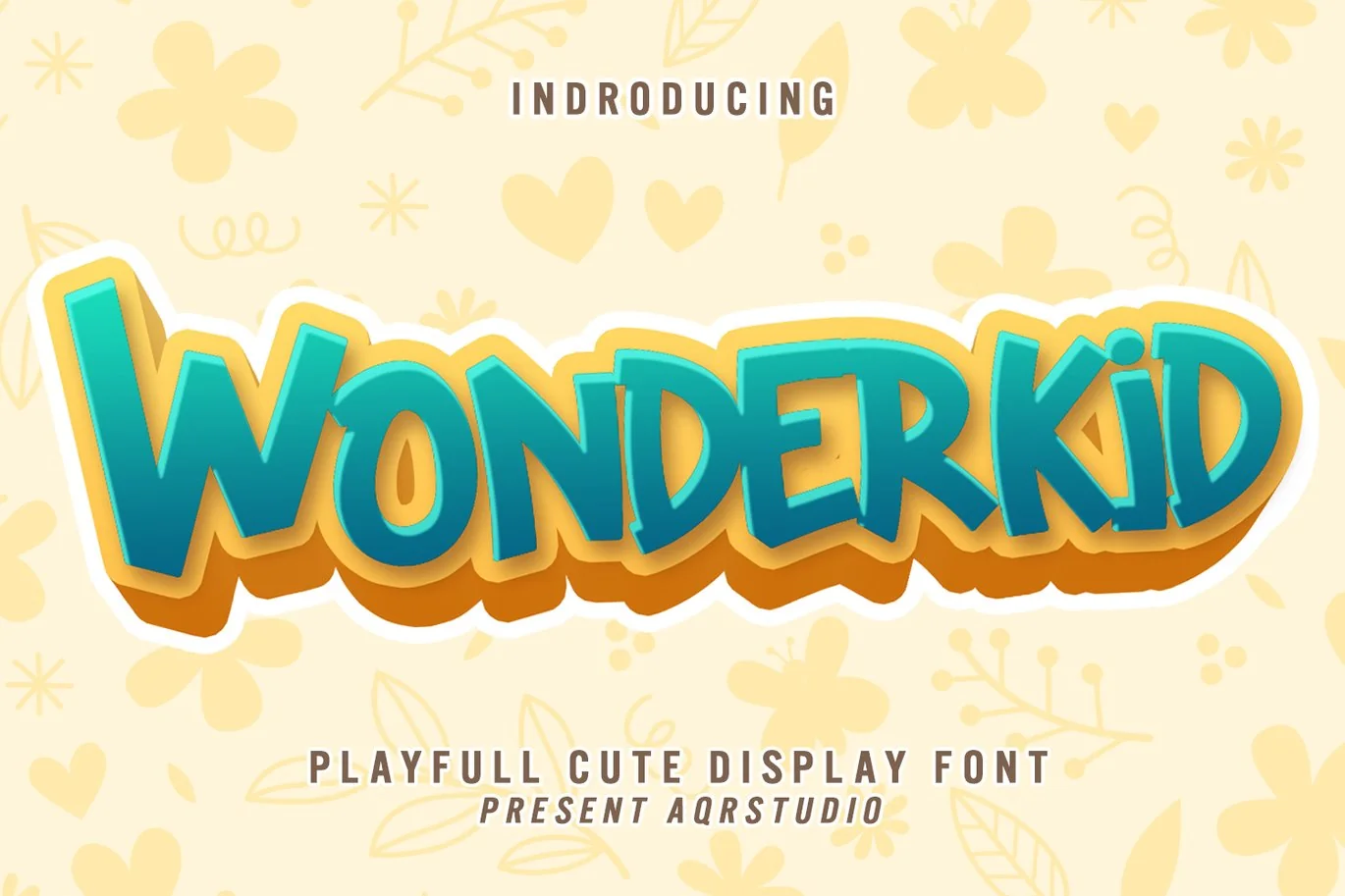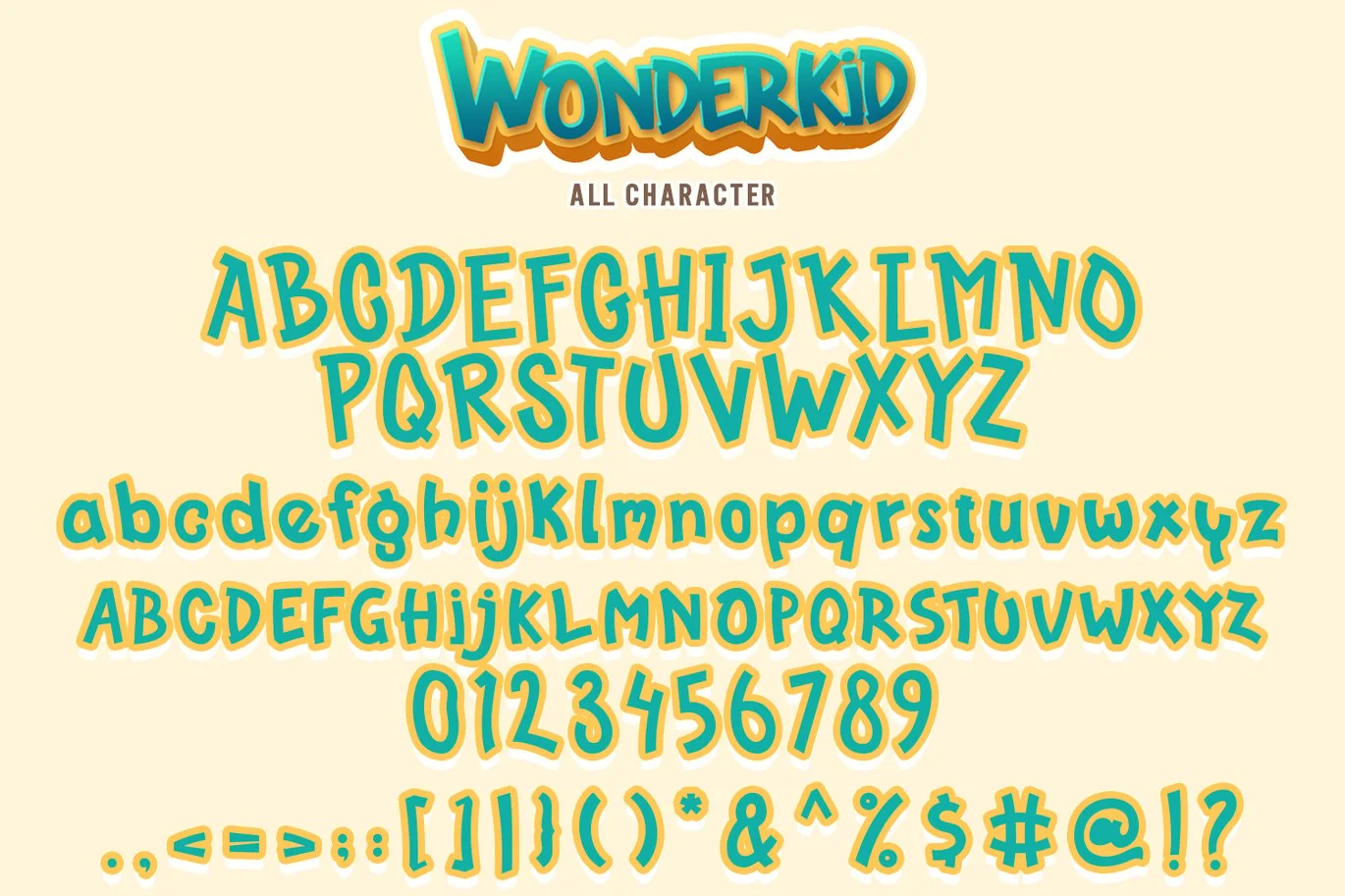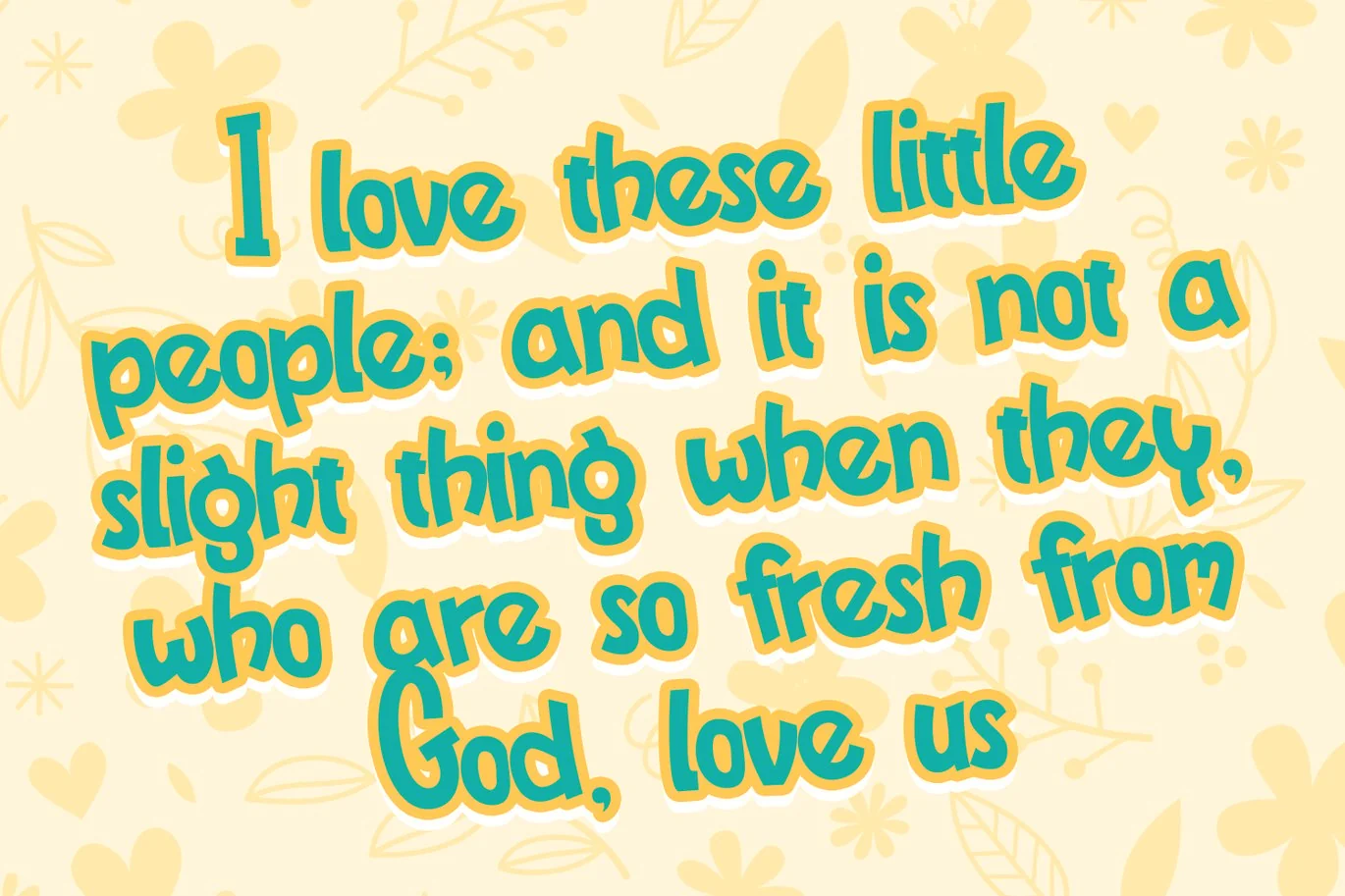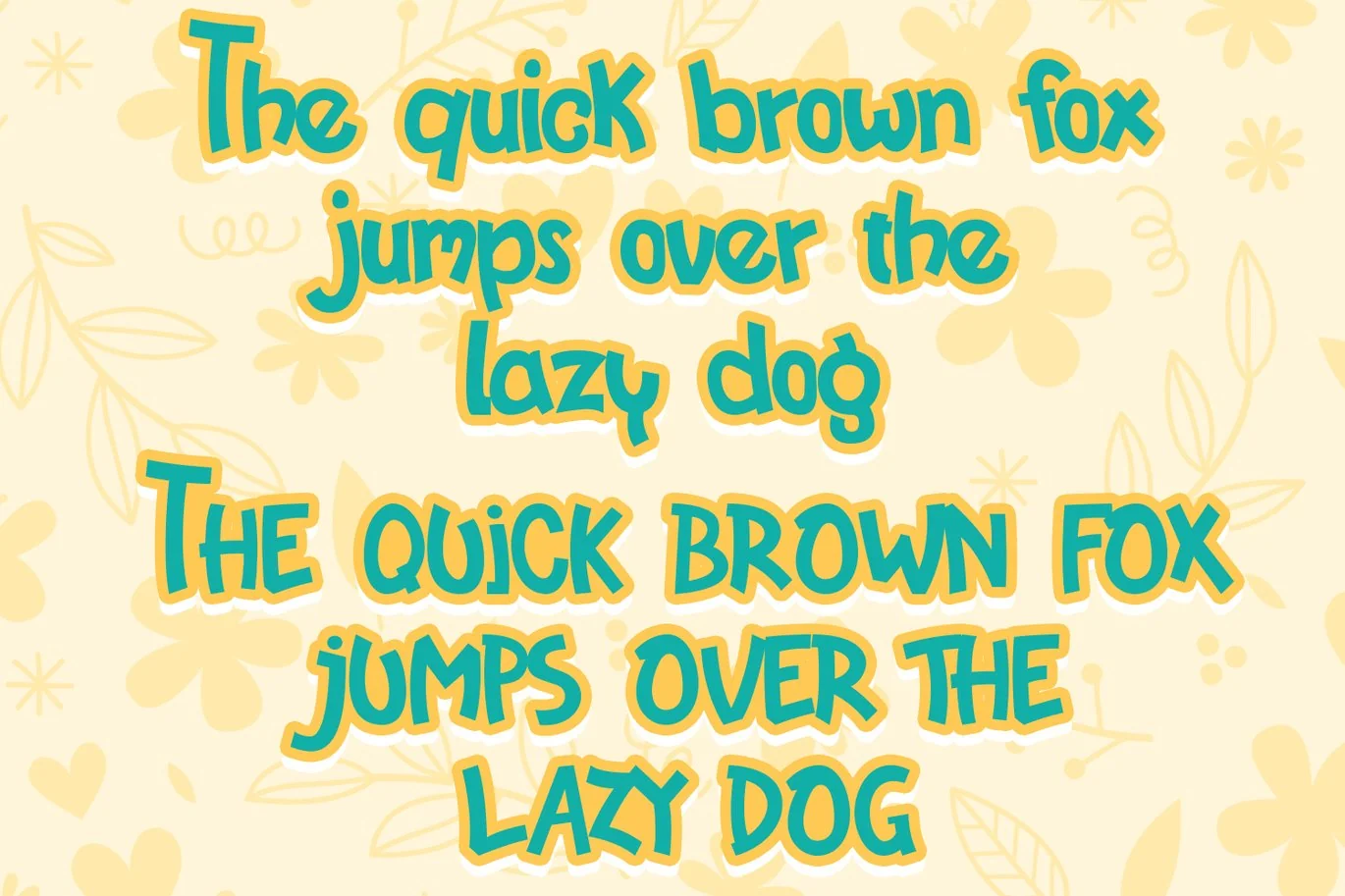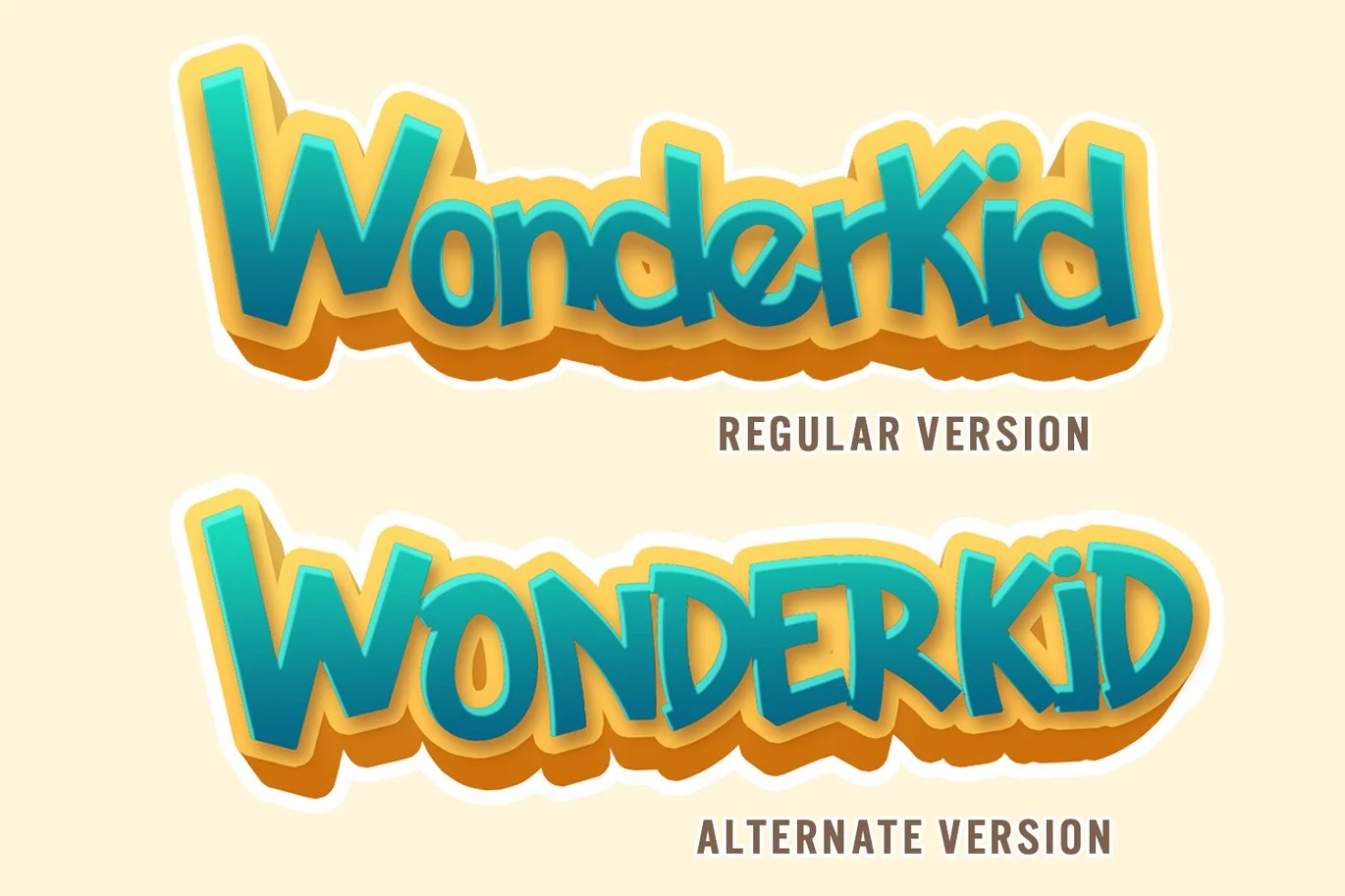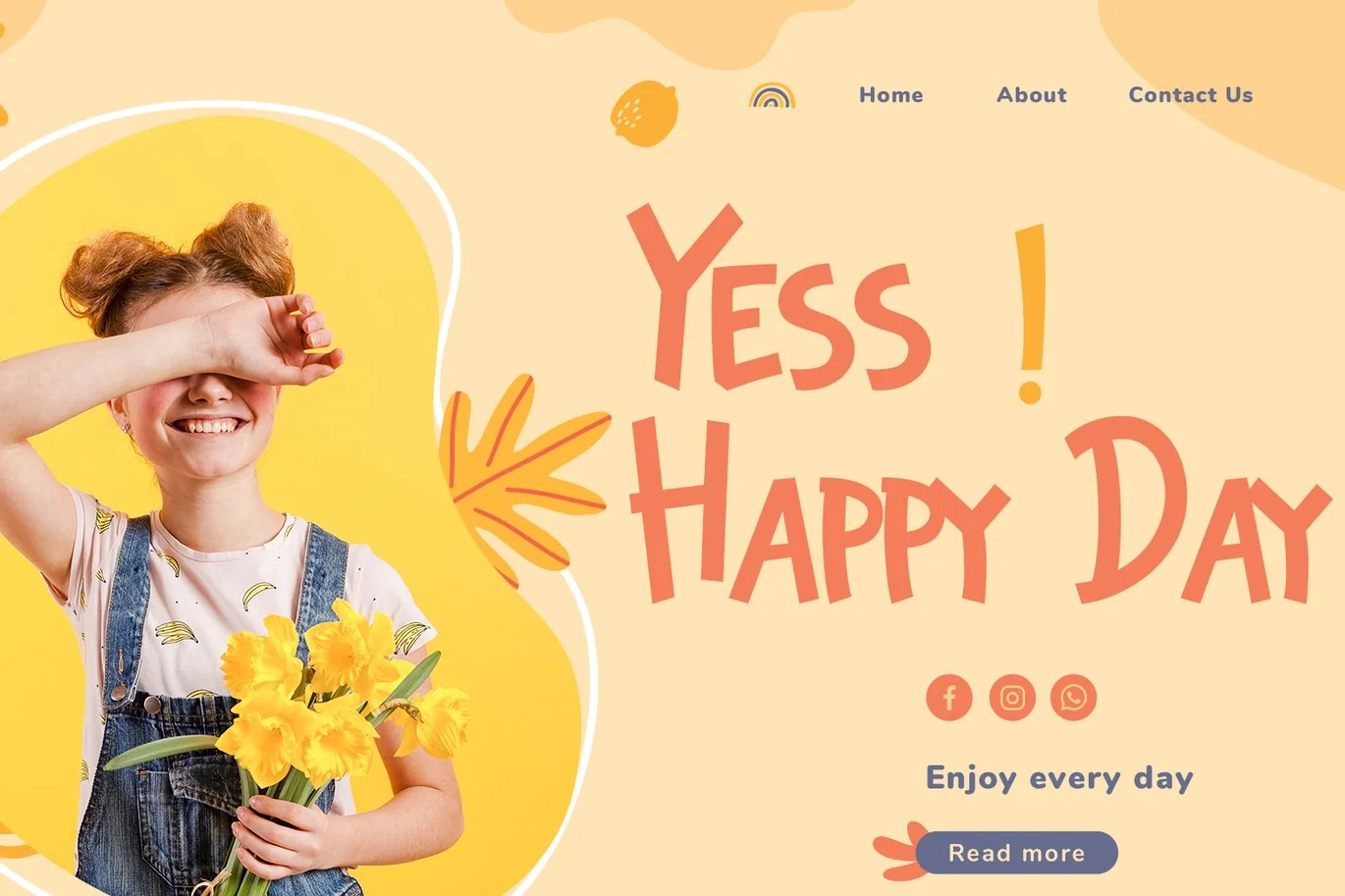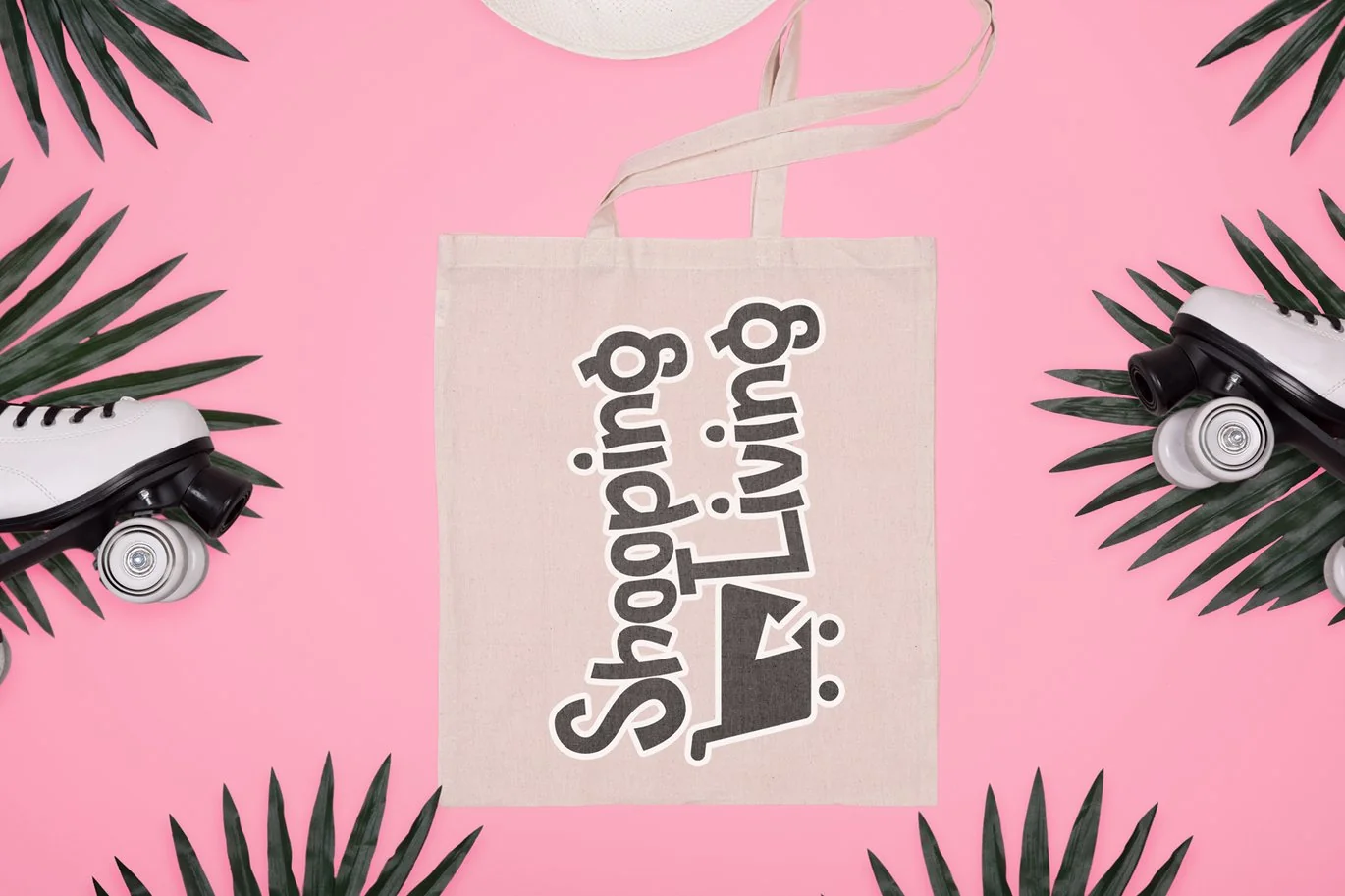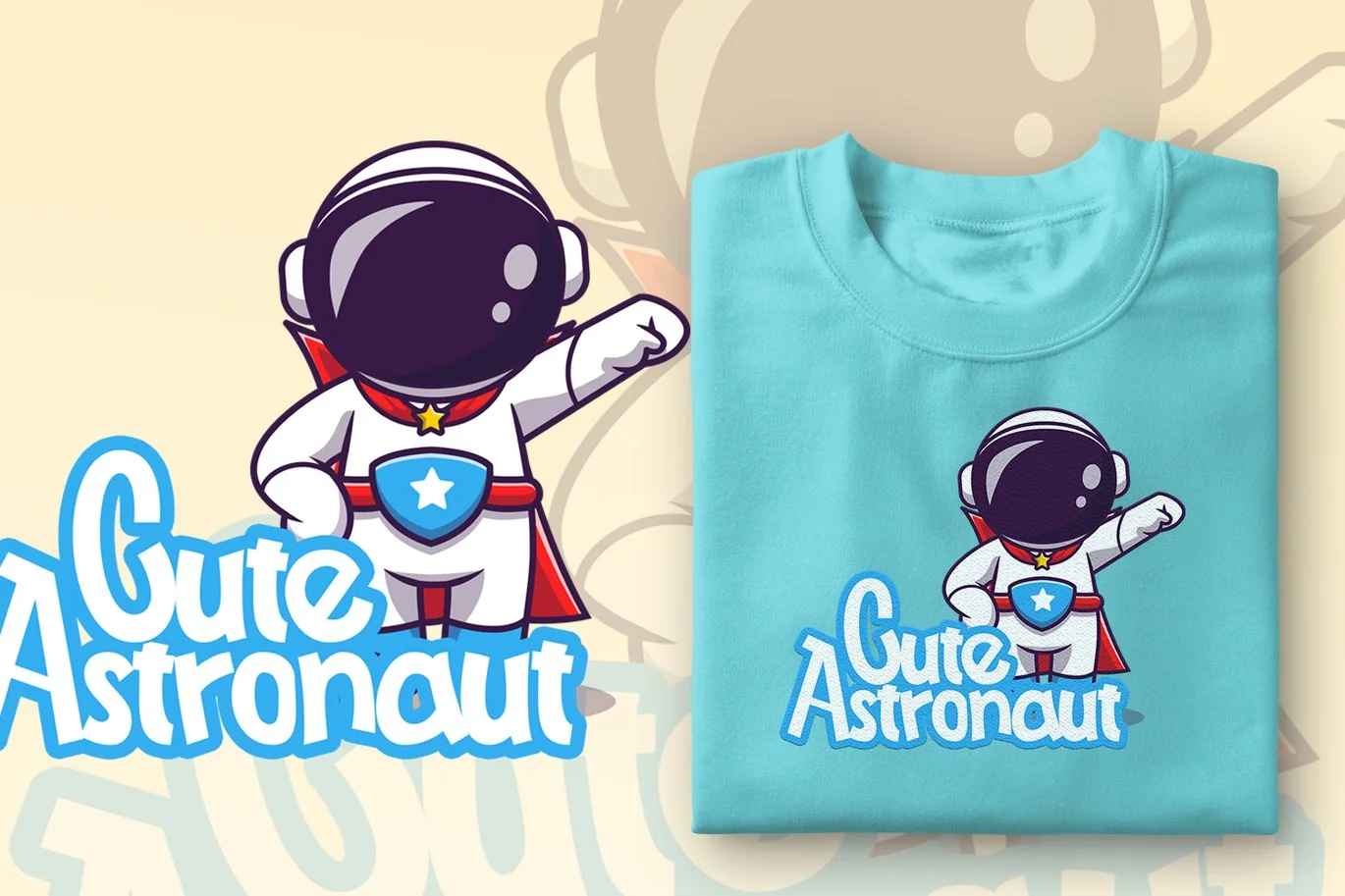
Wonderkid – Cute Display Font
Wonderkid – Cute Display Font contains a lowercase, uppercase, symbol, and also supports multi-language. There’s a lot of ligature in this font. Baguette Font also comes with ligatures, stylistic alternates and many more.
this font suitable for fashion, branding, catalog and other design that you want.